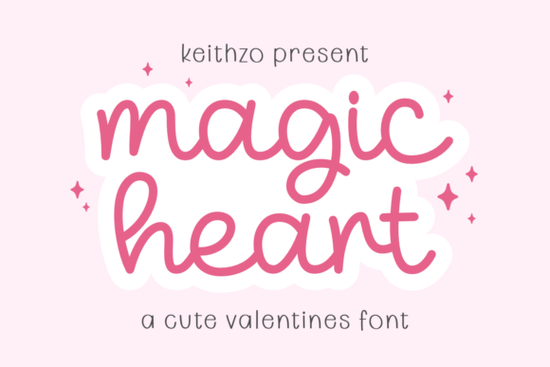
If you're looking for a friendly, hand-drawn script font that works beautifully on greeting cards, tote bags, or small-batch prints especially around Valentine’s Day or wedding season Magic Heart Font is worth your attention. It’s a clean monoline script, meaning every stroke has consistent thickness, which makes it highly legible at small sizes and easy to cut with vinyl or embroider. Unlike bouncy or overly ornate scripts, Magic Heart keeps things warm and approachable without sacrificing polish.
What kind of projects does Magic Heart work best for?
This font shines where charm and clarity matter most. Think: handmade greeting cards with heartfelt messages, minimalist wedding stationery (think save-the-dates or place cards), custom gift tags, or even subtle branding for a small candle or soap business. Because it’s monoline and lightly rounded, it scales well from 12pt text on a sticker to 120pt headlines on a canvas bag. It’s also designed with crafters in mind: the letters connect smoothly, so it cuts cleanly with Cricut or Silhouette machines, and the spacing feels natural not cramped or awkward when typed out.
It’s especially popular among print-on-demand sellers who want romantic, low-competition designs for niche moments: anniversary quotes, “love you more” mugs, or “forever & always” wall art. Since it avoids trendy flourishes, it stays fresh longer than seasonal fonts that feel dated by next year.
How does Magic Heart compare to other script fonts on Creative Fabrica?
Like Detourne Font, Magic Heart has gentle flow but Detourne leans more elegant and formal, while Magic Heart feels like something you’d write with a fine-tip marker on a love note. If you’ve used Frisky Cat Font, you’ll notice Magic Heart is quieter and more versatile it doesn’t rely on playful quirks to stand out, so it pairs easily with serif or sans-serif companions.
American Route Font gives off vintage Americana vibes, great for coffee shops or travel journals; Magic Heart is softer, more personal. And while Summer Beach Font brings sun-bleached, carefree energy, Magic Heart carries quiet sincerity ideal for moments that call for tenderness over exuberance.
Even compared to Miss Roderick Font, which has delicate swashes and high contrast, Magic Heart stays grounded. That makes it easier to use consistently across product lines no need to adjust tracking or kerning constantly to make it look balanced.
Real-world tips for using Magic Heart well
- Pair it thoughtfully: Try it with a simple sans-serif like Montserrat or Poppins for contrast great for quote posters or shop banners.
- Watch line length: Monoline scripts read best in short phrases. Avoid full paragraphs. Use it for headlines, names, or one-liners not body copy.
- Test before cutting: Always do a test cut on scrap material first. Its smooth curves hold up well, but very tight corners (like the inside of an “a” or “e”) can sometimes snag on lower-end vinyl cutters.
- Use OpenType features sparingly: Magic Heart includes alternate characters and ligatures but only enable them if they improve readability. Overusing swashes can distract from the message.
One thing users appreciate: Magic Heart comes with both uppercase and lowercase letters, numbers, punctuation, and basic multilingual support (including accented characters used in Spanish and French). That’s helpful if you sell internationally or design bilingual baby announcements or wedding invites.
If you’re building a cohesive brand kit say, for a handmade jewelry line or a boutique stationery shop Magic Heart fits neatly alongside soft color palettes and natural textures like kraft paper, linen, or matte ceramic. It doesn’t shout. It invites.
Also, keep in mind that script fonts like Magic Heart work best when they’re part of a thoughtful layout not the only visual element. A little heart icon, a soft watercolor wash, or even just generous white space helps it breathe.